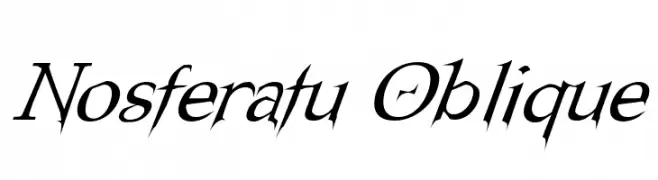
A bold, jagged font with a gothic, horror-inspired style.
A bold, decorative Blackletter-style font with intricate detailing.
A rugged, hand-drawn font with a distressed, historical appearance.
A spooky, jagged font ideal for Halloween and horror themes.
A futuristic, abstract font with geometric and cryptic character designs.
A decorative, abstract font with tribal and geometric influences.
A whimsical, vine-like decorative font with playful and eerie characteristics.
A playful, spooky font with spider web elements and bold, rounded characters.
A bold, decorative font with gothic and tribal influences, featuring intricate and angular designs.
A bold, spooky font with jagged, dripping characters ideal for horror themes.
A decorative, angular font with sharp, geometric patterns.
An ornate Gothic-style font with dramatic, intricate designs and bold strokes.
A bold, abstract font with a futuristic and alien-like design.
A bold, dripping font perfect for horror or Halloween themes.
A dramatic, jagged font with a spooky, gothic style.
A decorative, gothic-style font with elongated, sharp characters.
A bold, dripping font with a spooky, dramatic style.
A decorative, gothic-style font with arrow-like serifs and pointed ends.
An edgy, gothic-inspired font with sharp, angular lines and a hand-drawn feel.
A geometric, abstract font resembling semaphore signals with a modern, cryptic style.
A decorative, abstract font with geometric shapes and dots, evoking a futuristic or alien aesthetic.
An abstract, symbol-like font with intricate and artistic designs.
A bold, gothic font with sharp, jagged edges and a spooky aesthetic.
A whimsical, twisted font with a spooky, supernatural vibe.
A bold, Gothic-inspired font with ornate, decorative frames around each character.
A bold, medieval-inspired font with ornate and decorative elements.
A bold, dripping font with a gothic, horror-inspired style.
A spooky, hand-drawn font with jagged, uneven strokes for a chilling effect.
A spooky, gothic-style font with sharp serifs and decorative details.
A decorative, thorny font with a gothic and edgy style.
A bold, hand-drawn font with an expressive, brush-like style.
A bold, spooky font with jagged edges and thematic Halloween elements.
A bold, spooky font with sharp edges and a playful, eerie style.
A whimsical and eerie font with elongated, uneven strokes and playful curls.
A whimsical, spooky font with distorted, playful characters.